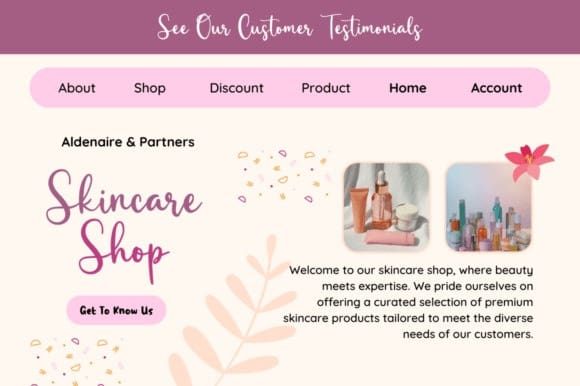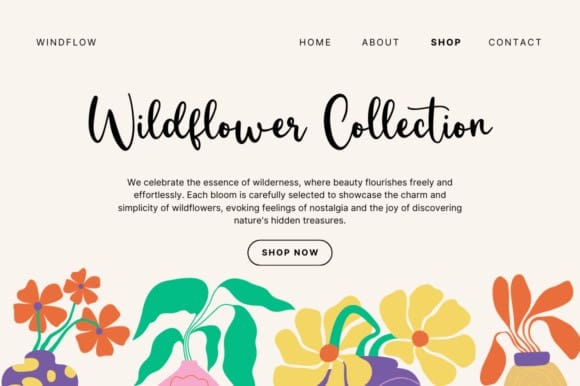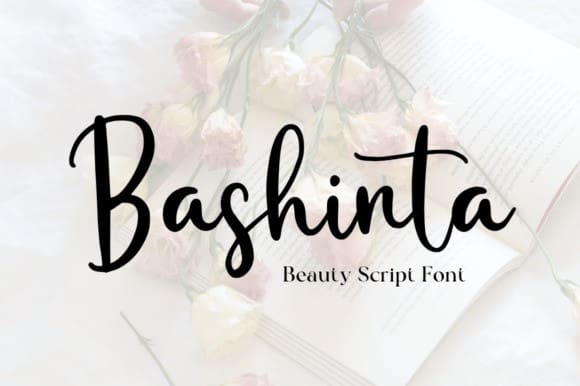
Bashinta Script Font
Bashinta Script Font a bold and beautiful script font that captivates with its elegant flourishes and striking curves. With its bold strokes and graceful letterforms, this font exudes sophistication and charm. Perfect for projects that demand attention and elegance, such as wedding invitations, branding, or luxurious packaging. “Bashinta” elevates your designs with its timeless beauty, making every word a captivating work of art.